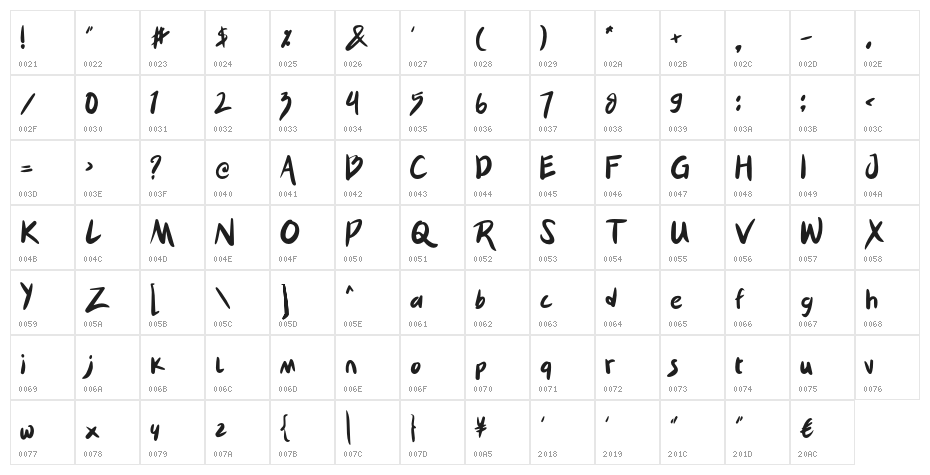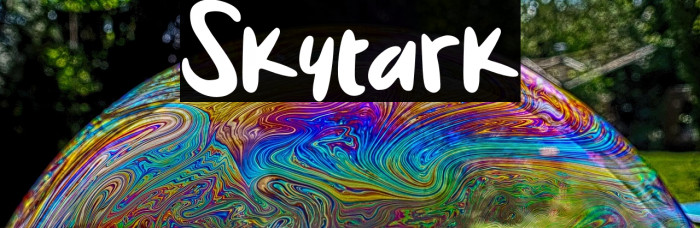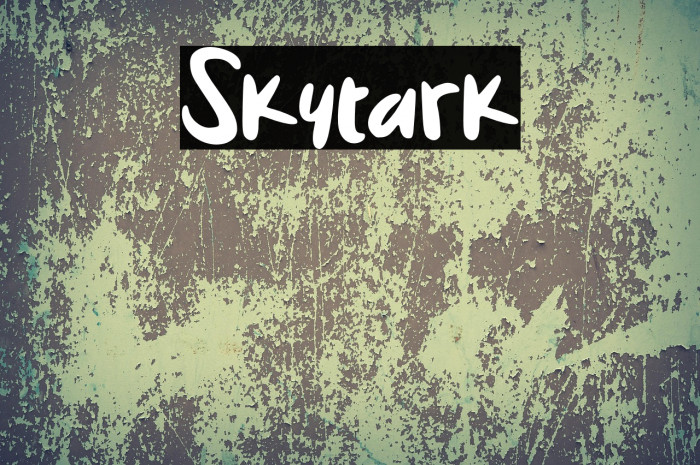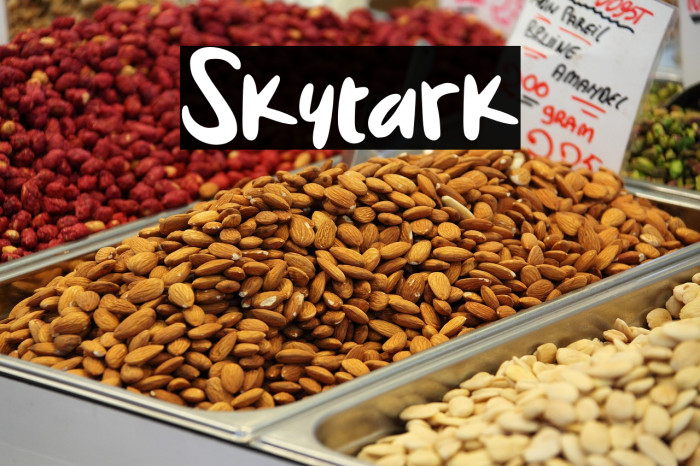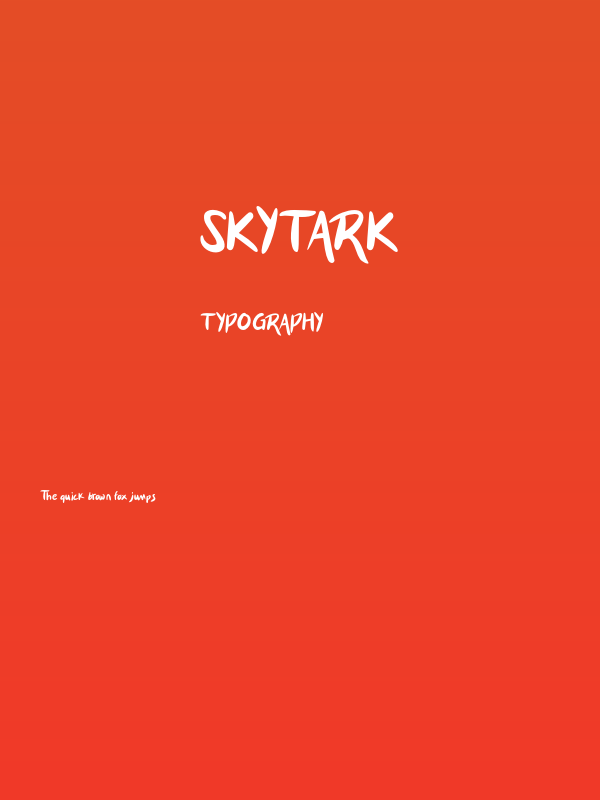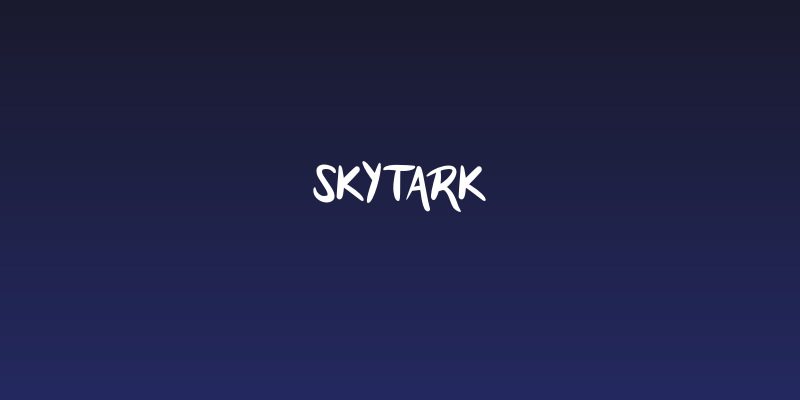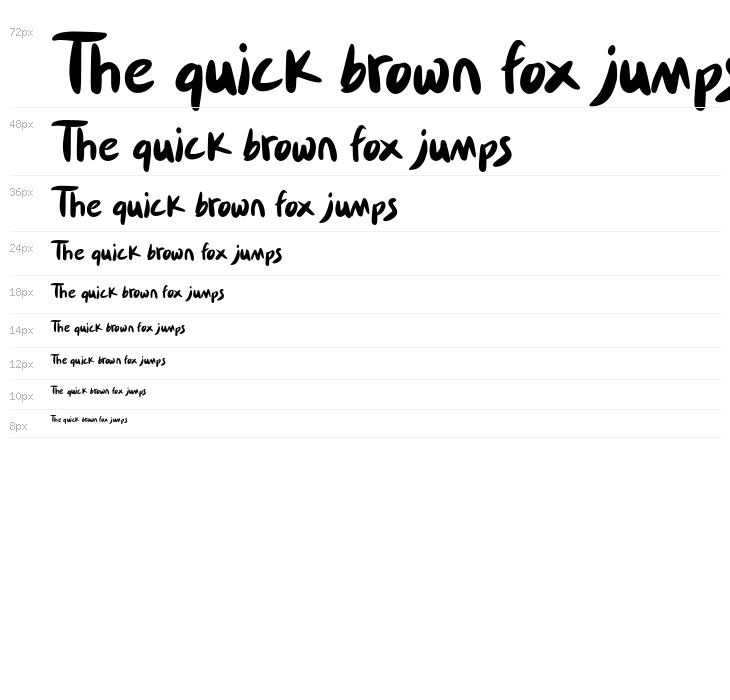
Skytark Font
Skytark Description
This font features a bold, energetic style with a handwritten appearance. The letters are slightly slanted, giving a dynamic and informal feel. The strokes are thick and consistent, with a playful and casual vibe. The uppercase and lowercase letters maintain a cohesive look, while the numbers and special characters complement the overall style. This font is perfect for projects that require a personal touch, such as invitations, posters, or branding materials that aim to convey a sense of creativity and approachability.
| Proposed Projects | Ideal for invitations, posters, branding, and creative projects. |